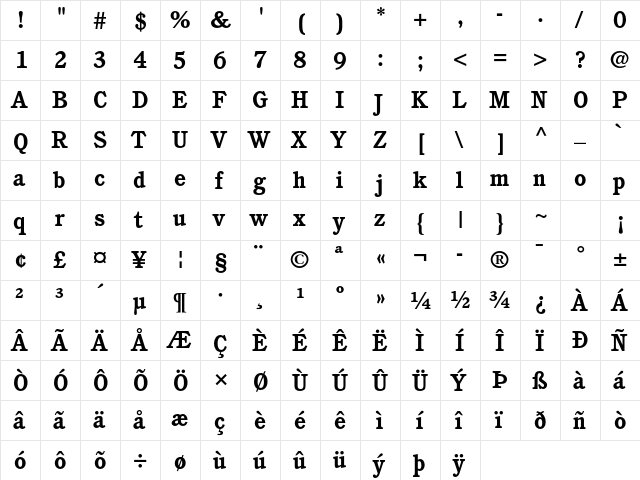
ITC Cushing Std Bold
| Designer | Vincent Pacella |
Design Context for ITC Cushing Std Typeface
ITC Cushing Std is a composed and adaptable typeface that performs quietly and consistently across a wide range of design contexts. Its bold stroke weight gives it real presence on the page.